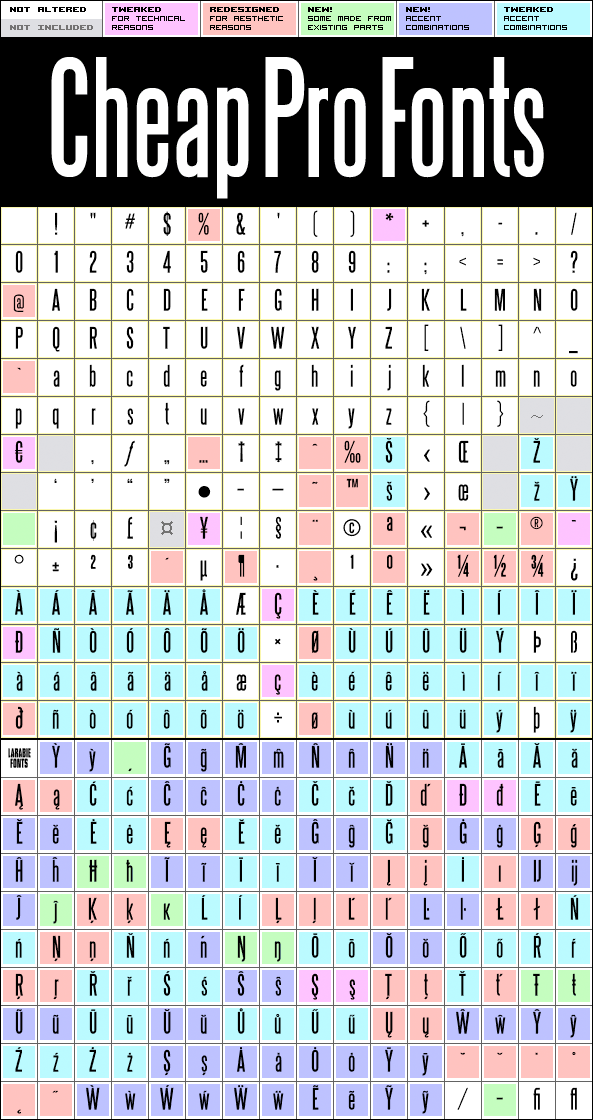
Steelfish Pro
Steelfish Pro by Ray Larabie
Ray Larabie
375 glyphs!
(301 in original)
271 class kernpairs
= 7015 kerning pairs
(109 in original)
This is a very narrow, movieposter-credit-style font. Use where you need to put in a lot of text in a small space.
Ray Larabie says: «A compact Sans-serif font».
Steelfish Pro is a professionally reworked font that contains an extended character set for setting text in 65 languages requiring more than the basic A-Z!